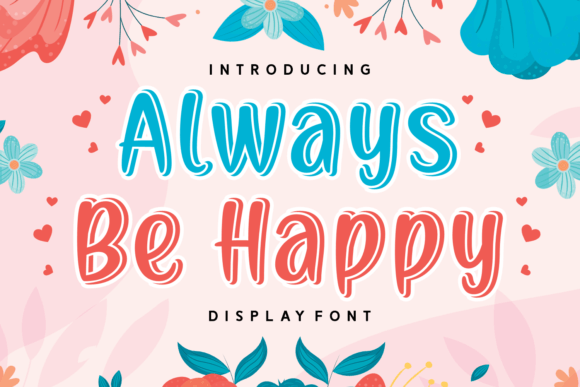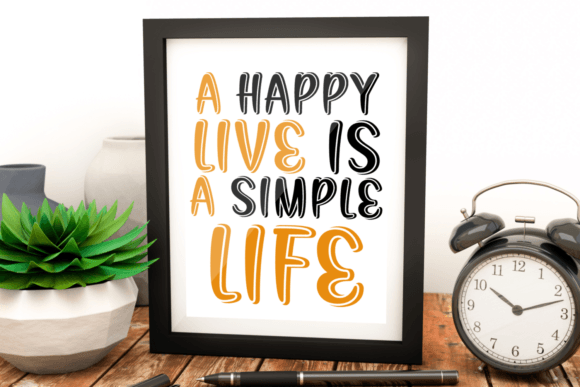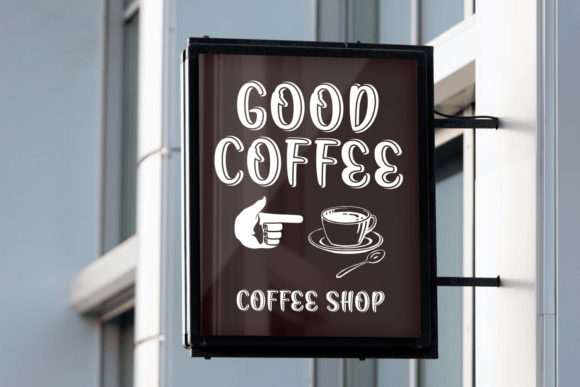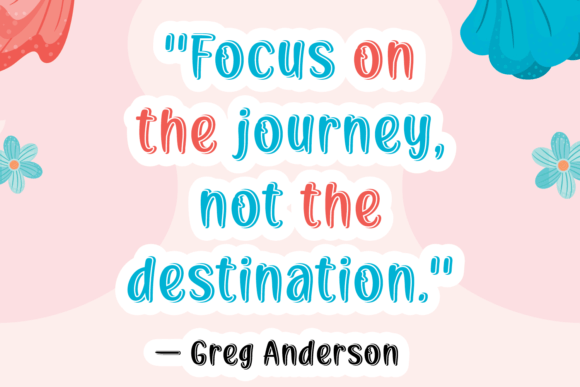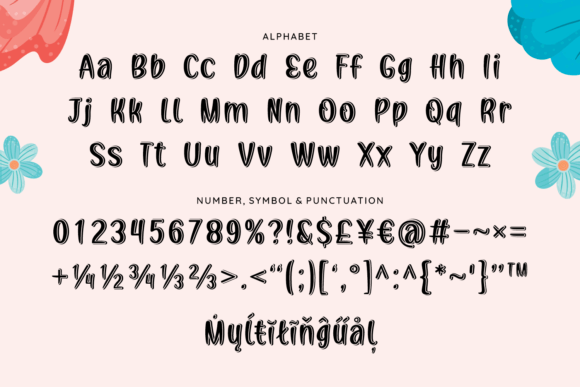
Always Be Happy is a cheerful and friendly display font. The extra set of lines gives this font its 3D look, making it perfect for eye-catching typography. It looks great on posters, framed quotes, product packaging, and many more.